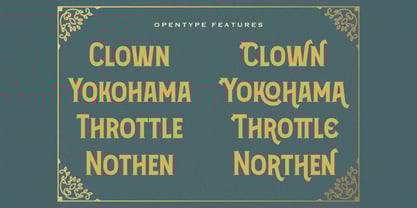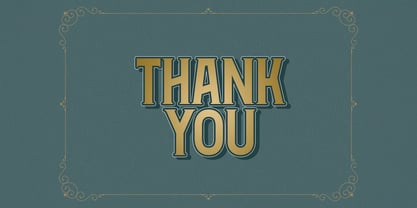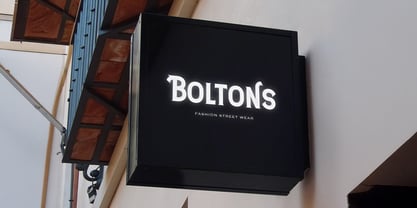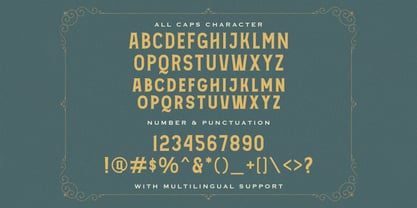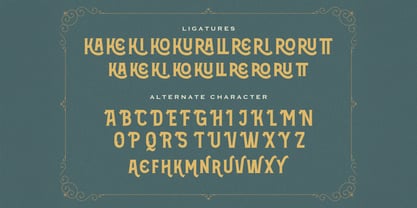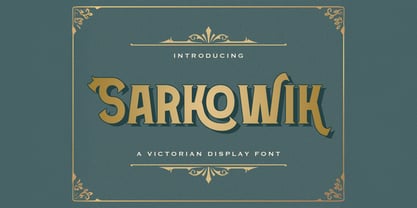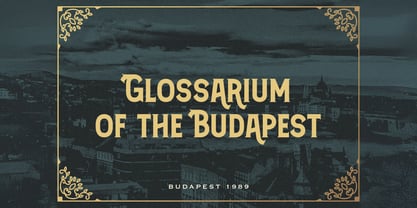
The Sarkowik Font Family was designed by Virgiawan Listanto and published by Stringlabs Creative Studio. Sarkowik contains 1 styles. More about this family
Sarkowik is a sophisticated Victorian-style font that transports your designs to an era of refined elegance and intricate detail. With its classic serifs and ornate flourishes, it's perfect for luxury branding, vintage-inspired signage, elegant invitations, or any project requiring a touch of historical grandeur and artistic flair.
Designers: Virgiawan Listanto
Foundry: Stringlabs Creative Studio
Sarkowik